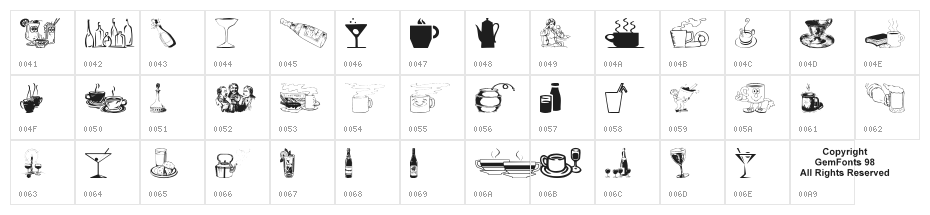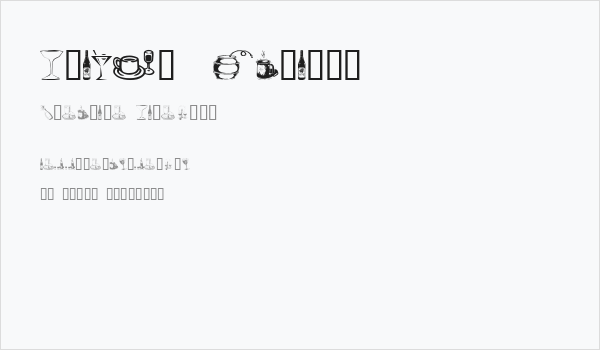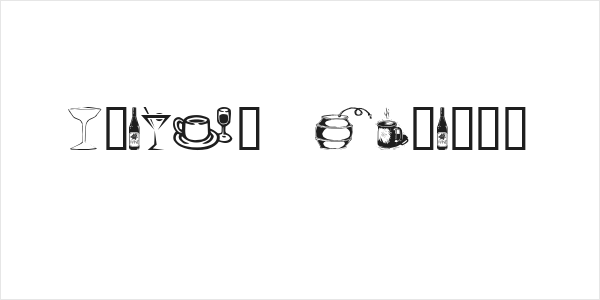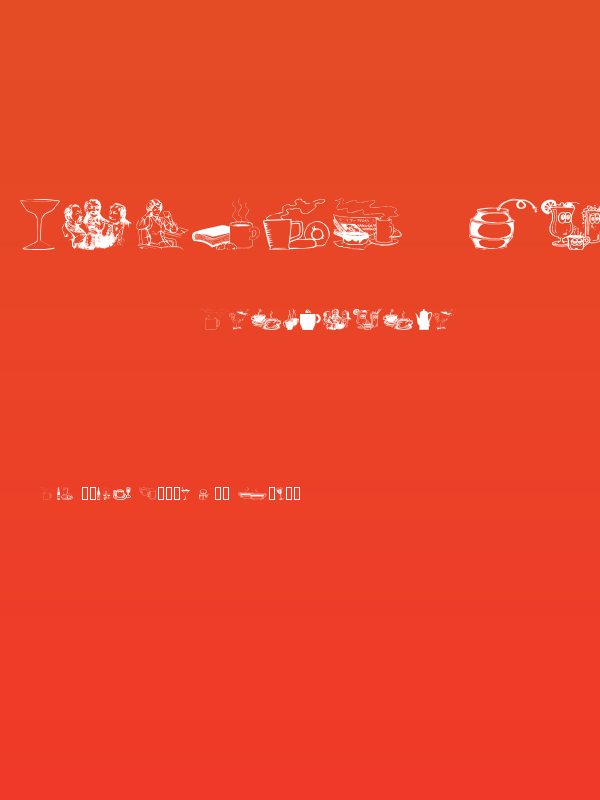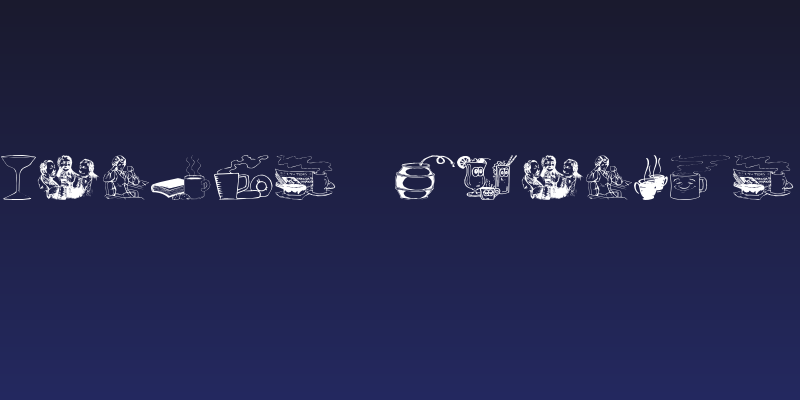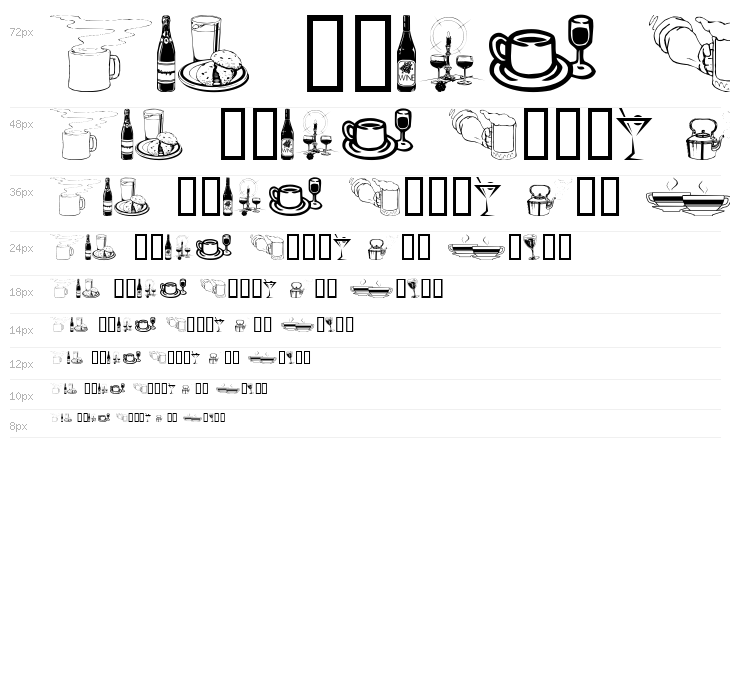
Drinks Various Font
Drinks Various Description
A decorative dingbat font featuring a variety of drink-related illustrations, including bottles, glasses, cups, mugs, teapots, and scenes of people enjoying beverages. The glyphs are detailed, black-and-white line drawings with a playful and lively style.
| Overall Style | Decorative, Playful |
| Use Case | Icons, Decorative elements, Themed graphics |
| Proposed Projects | Menus, bar signage, party invitations, event flyers, themed graphics, scrapbooking. |